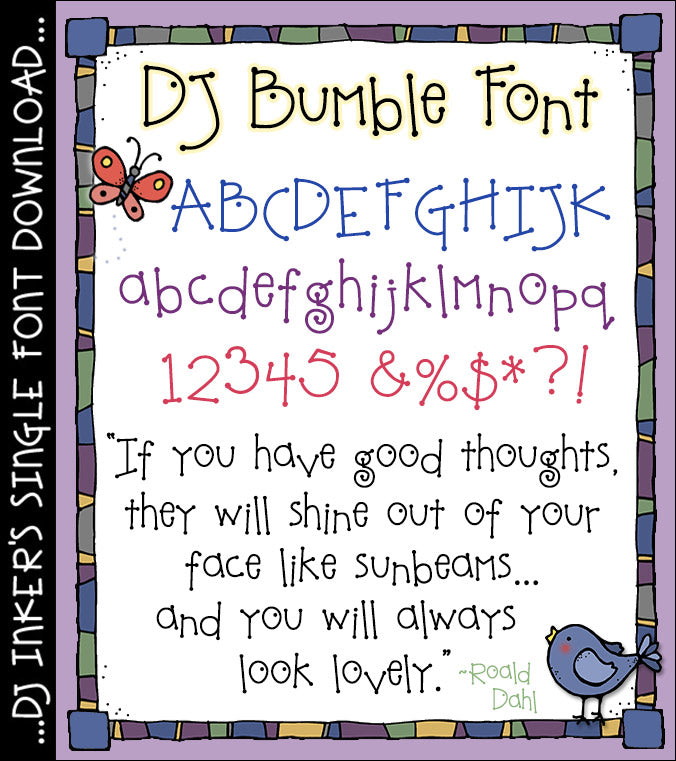
DJ Bumble Font Download
No need to bumble around looking for a cute font... now you've got one! :) This playful font is full of bounce and character... ready to add a smile to anything you can type up.